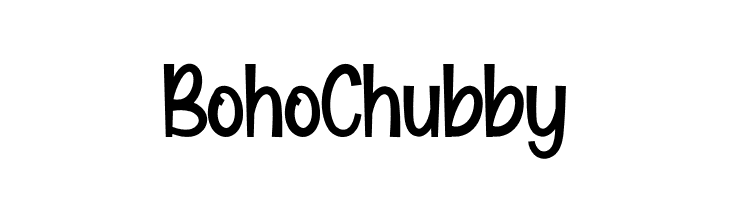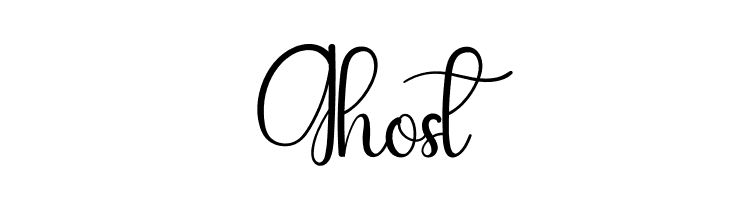
( Fonts by Scratchones )
A playful, handwritten font with tall, narrow letters and a whimsical style.
( Fonts by Jadatype )
A modern, elegant script font with flowing, cursive strokes.
( Fonts by Scratchones )
A tall, narrow, and modern font with consistent stroke width and close character spacing.
( Fonts by Timur Type )
A lively, casual handwritten font with fluid strokes and a personal touch.
( Fonts by Letterative Studio )
A fluid and elegant script font with smooth, flowing lines and cursive connections.
( Fonts by Skiiller Studio )
A bold, expressive handwritten font with tall, narrow letters and dynamic strokes.
( Fonts by Integritype Studio )
A playful and energetic handwritten font with a modern flair.
( Fonts by JSH creates )
A playful and energetic script font with elongated, flowing lines and a casual feel.
( Fonts by Rastype )
A playful, cursive font with elegant, flowing strokes and a handwritten feel.
( Fonts by Scratchones )
A playful, handwritten font with flowing, interconnected letterforms.
( Fonts by Maulana Creative )
A fluid and elegant script font with a handwritten style.
( Fonts by Masa Aska Sanurumi )
A bold, playful handwritten font with a lively and casual style.
( Fonts by Andi Moz )
A playful, handwritten-style font with dynamic uppercase and bold lowercase letters.
( Fonts by RaisProject )
A modern, elegant script font with smooth, flowing curves and excellent readability.
( Fonts by Bearytype )
A playful, cursive font with a handwritten feel and smooth, rounded curves.
( Fonts by Moove Studio )
A lively handwritten font with elegant, flowing characters and medium contrast.
( Fonts by Scratchones )
A playful, handwritten font with a whimsical and friendly style.
( Fonts by Edy Wiyono )
A playful, whimsical handwritten font with tall, narrow letters and a casual style.
( Fonts by Skiiller Studio )
A bold, handwritten font with a playful and energetic style.
( Fonts by Etik Fatimah )
An elegant and flowing script font with smooth, connected strokes.
( Fonts by Din Studio )
A flowing, elegant handwritten script with a personal touch.